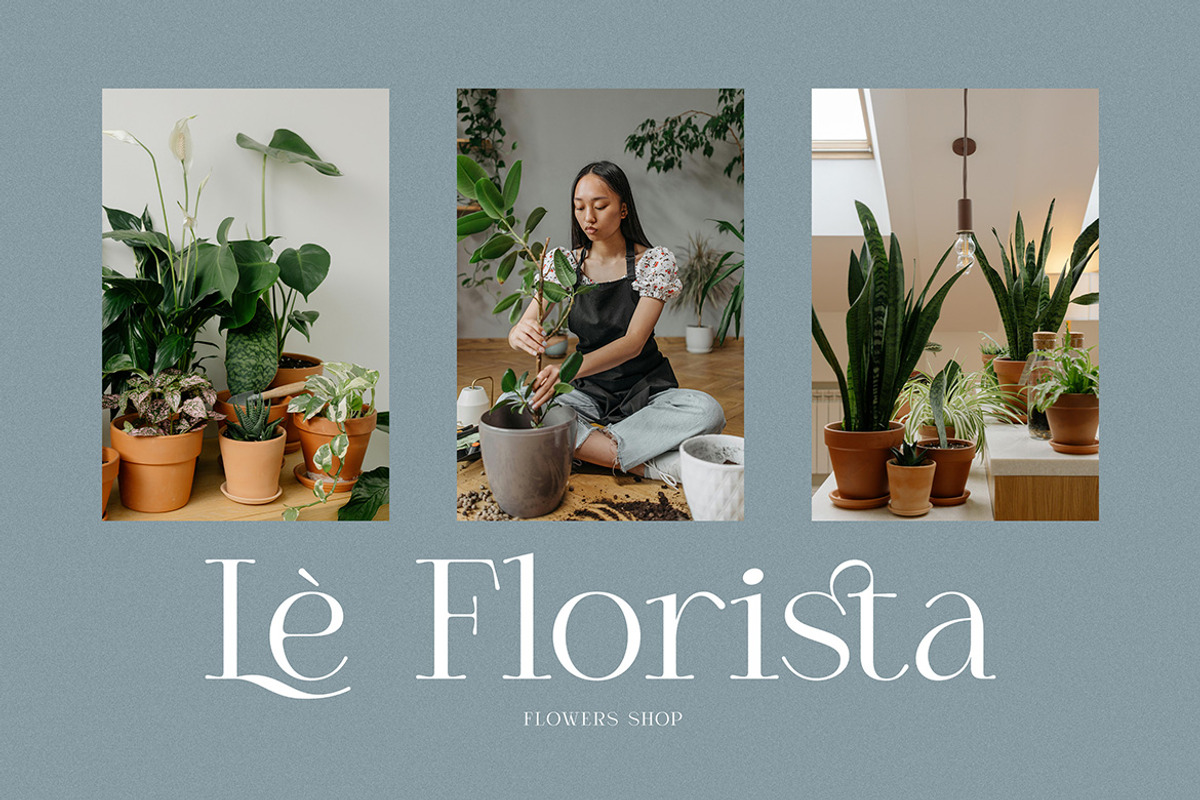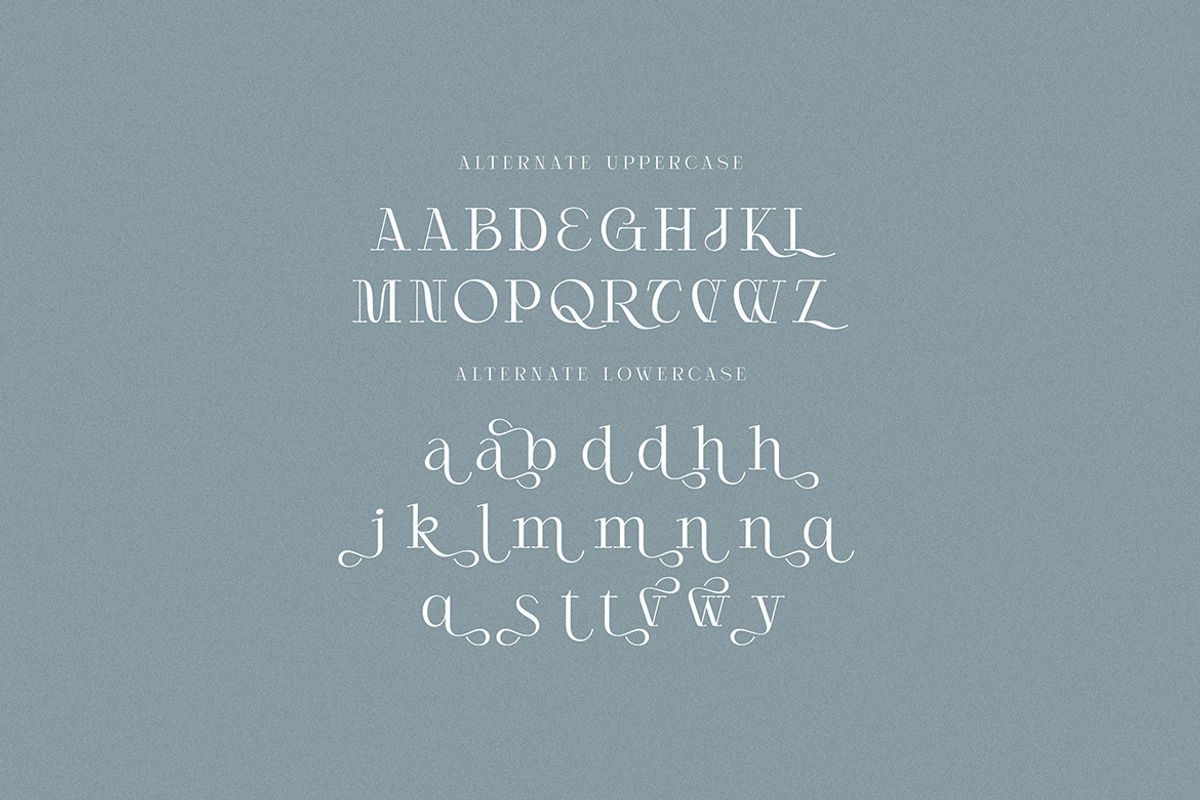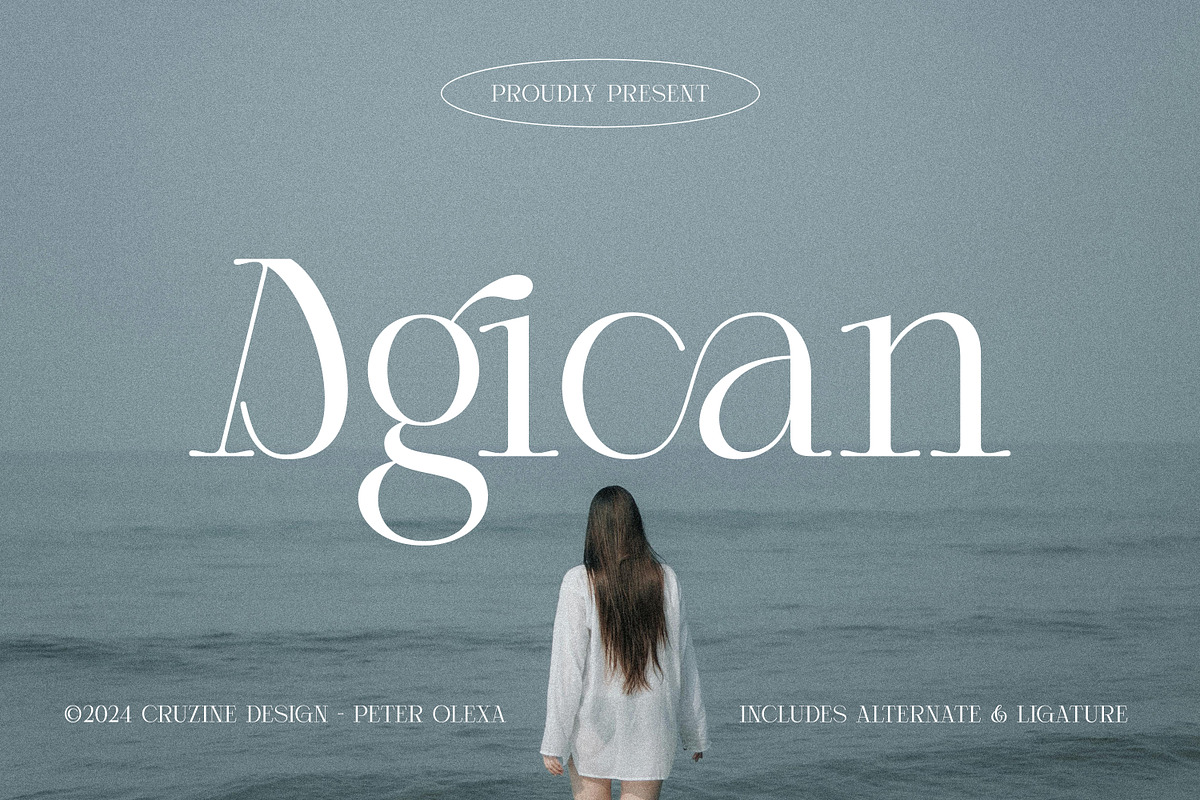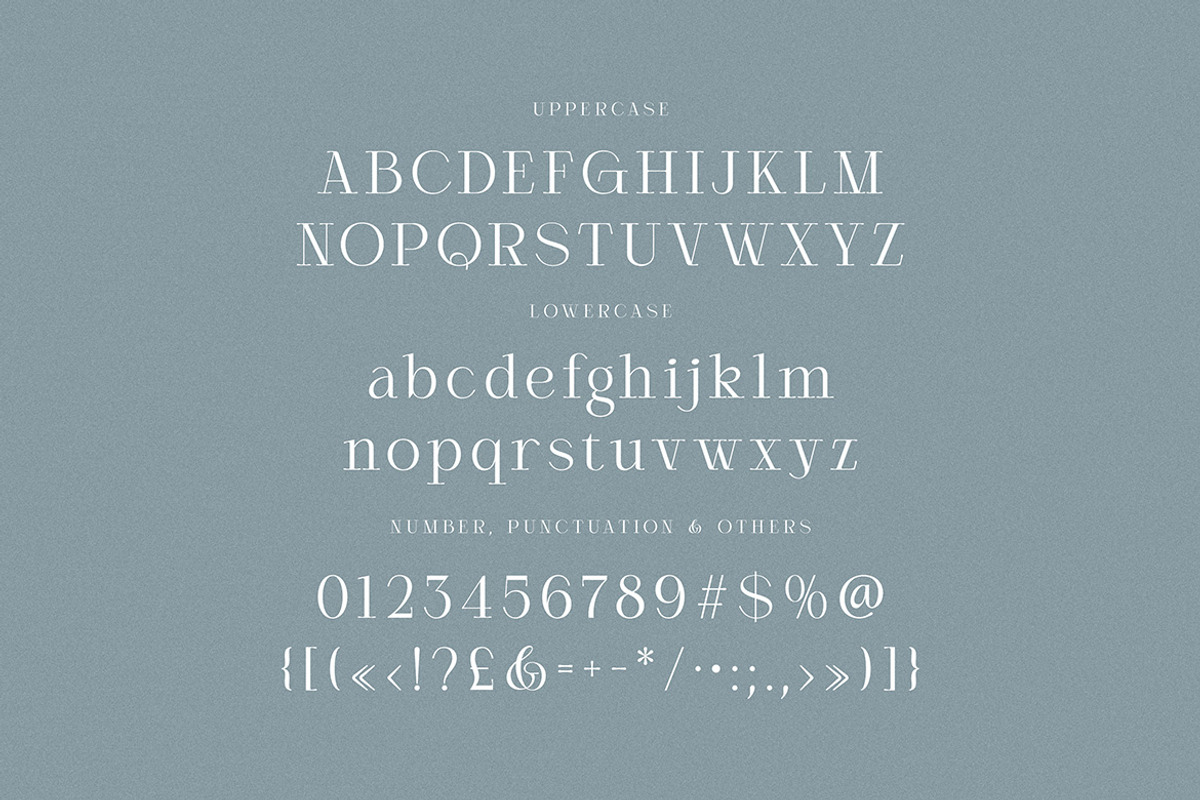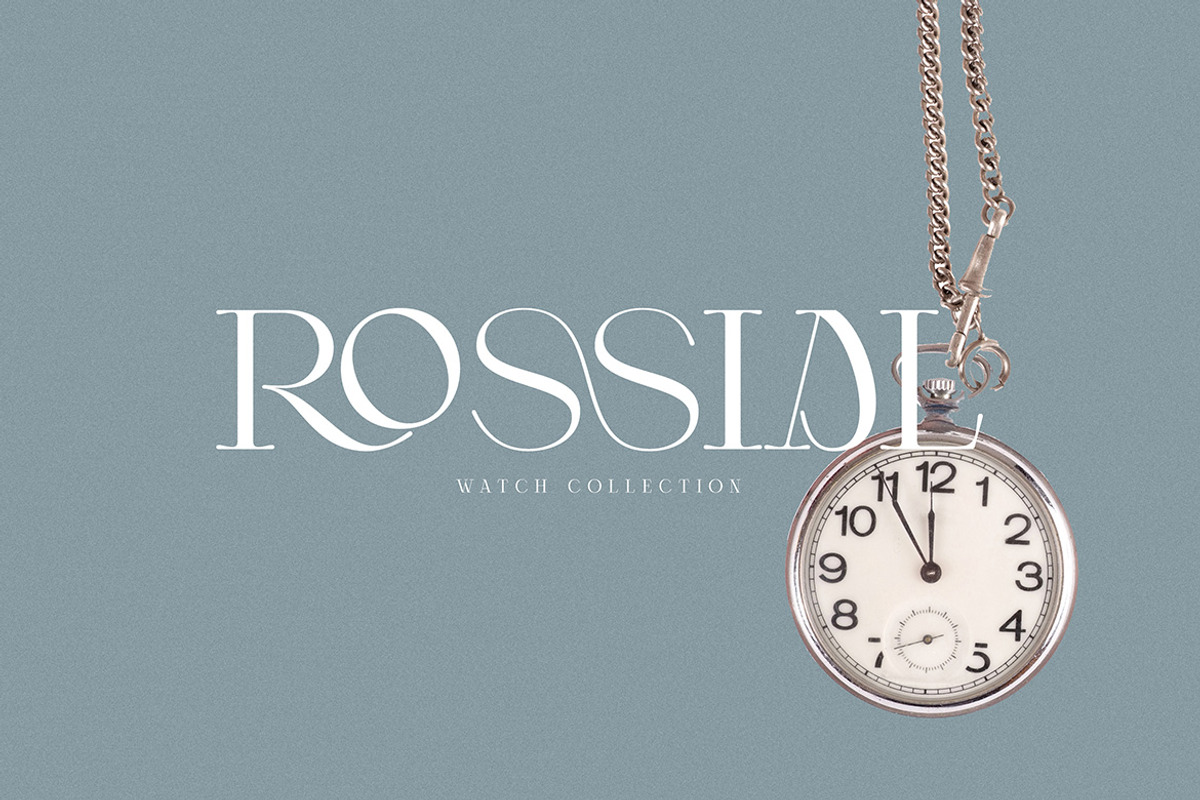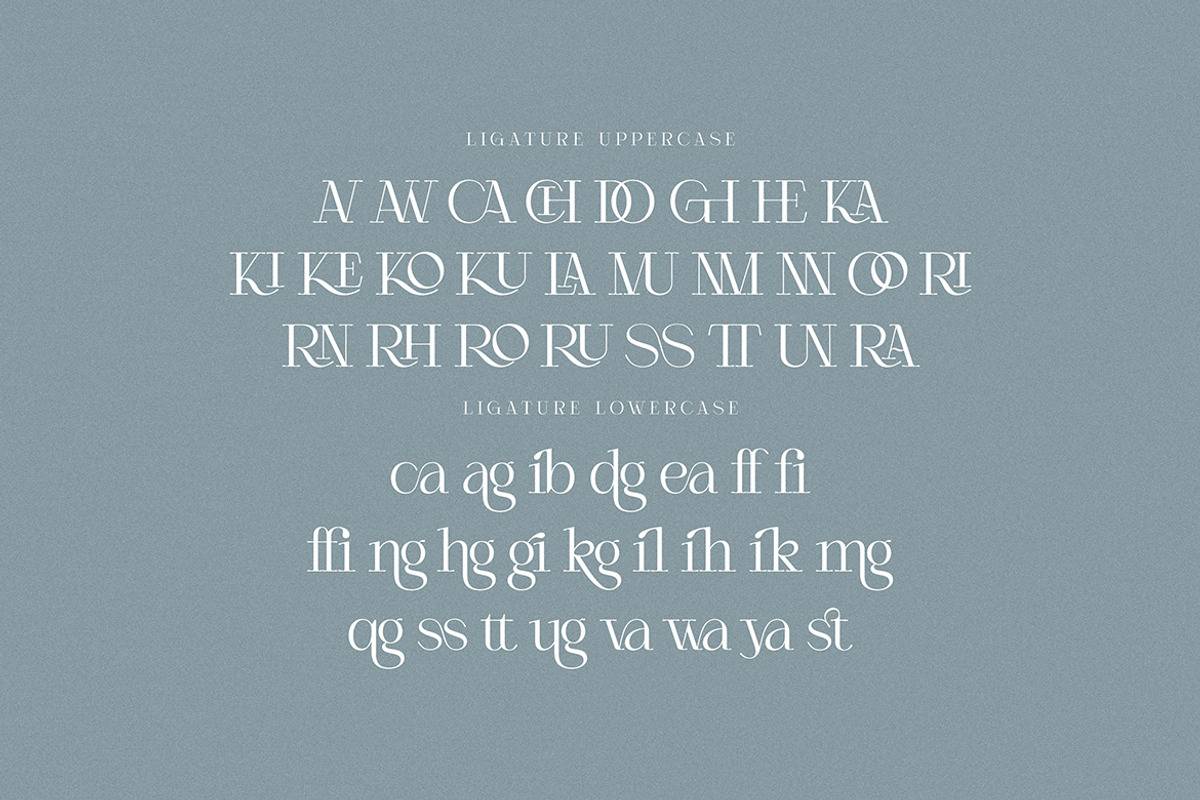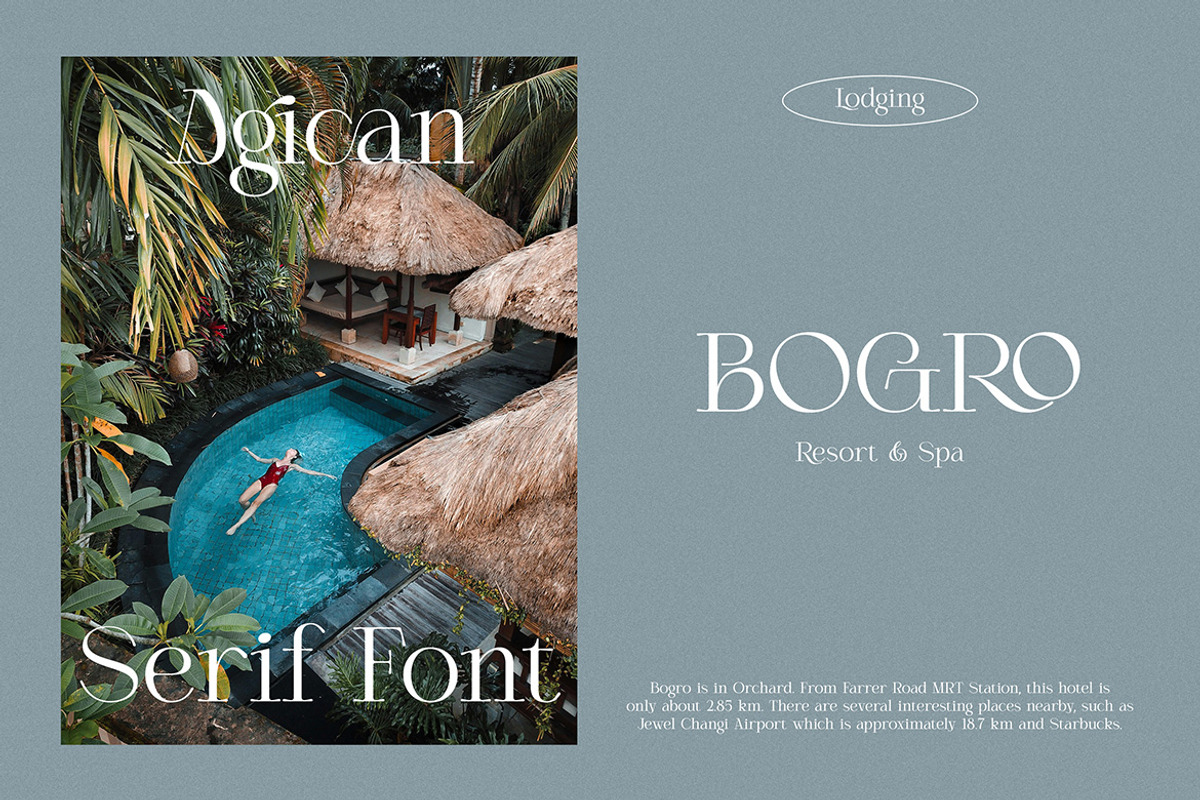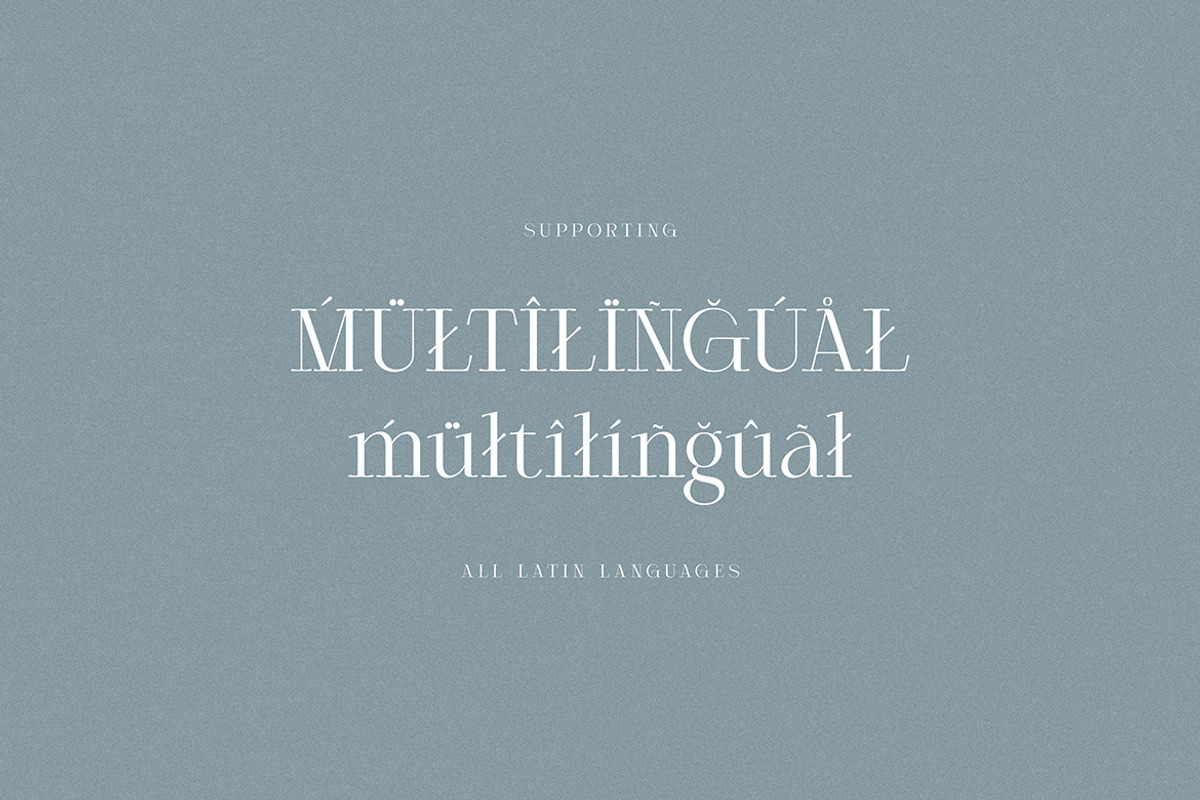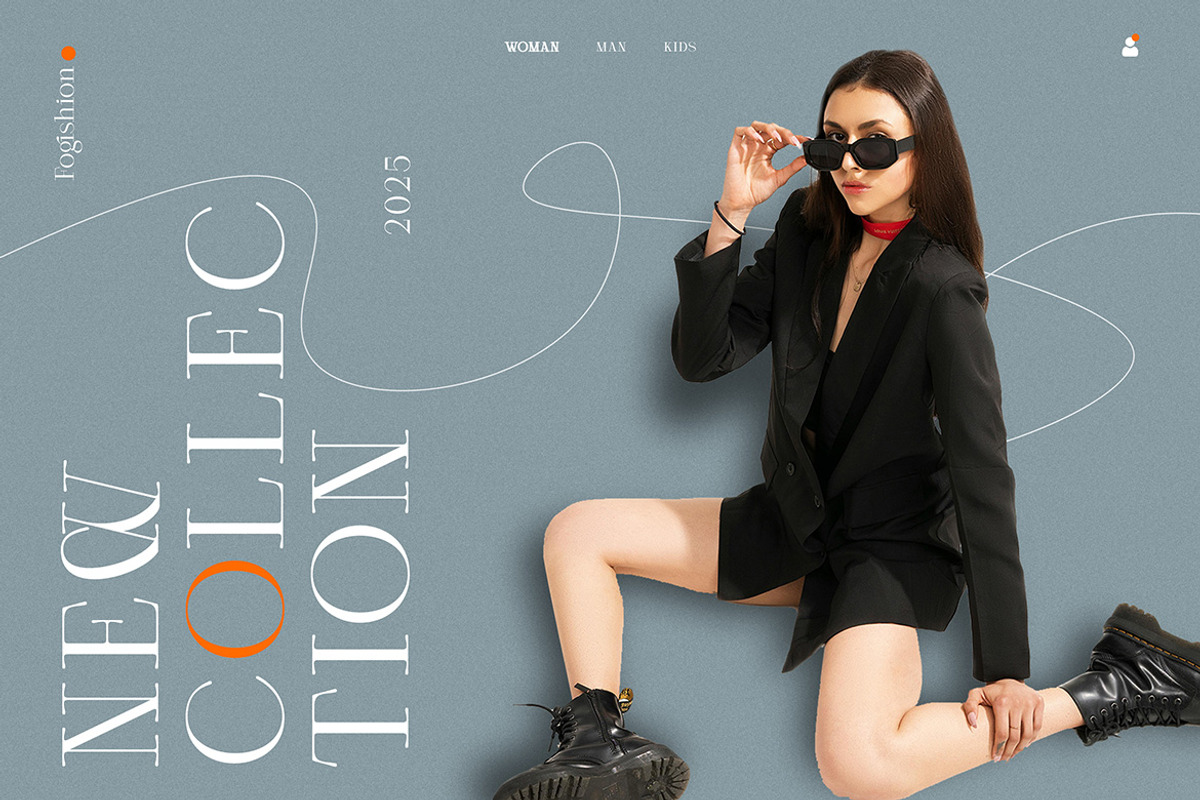
Agican Elegant Serif
Trendy, elegant, luxury, creative & modern style serif font for your new fancy projects. Stylish, romantic and classic style on Agican font will be great for any modern or classy branding project. Lot of alternates and ligatures will help you to create unique and original logo design or website header! Enjoy :)
- Alternate characters
- Lot of ligatures
- Great for modern branding projects!